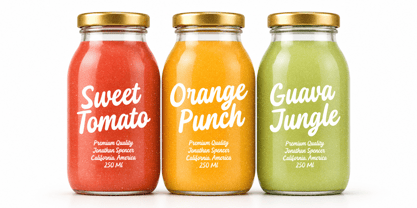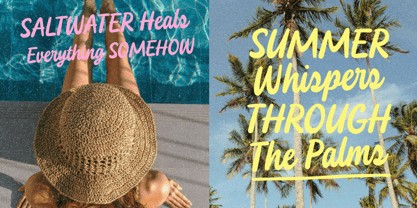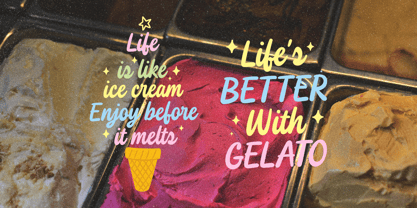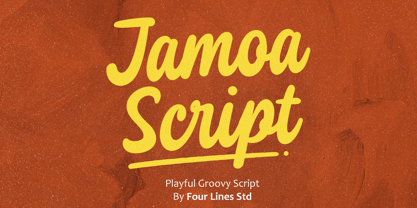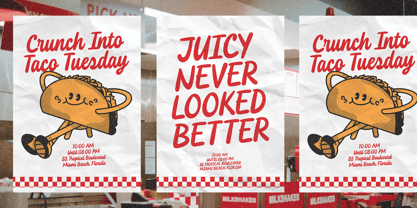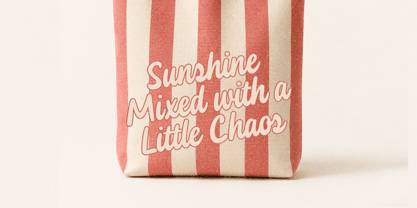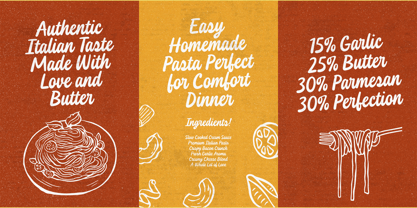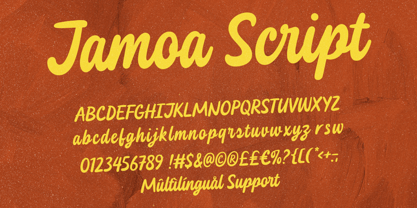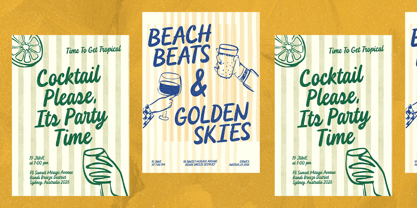
Jamoa Script
Die Schriftfamilie Jamoa Script wurde von Zain Fahroni entworfen und von Four Lines Std veröffentlicht. Jamoa Script enthält 1 Stile. Mehr über diese Familie
Jamoa Script is a playful groovy script font inspired by sunny summer vibes, retro cafés, beach parties, and warm handcrafted packaging. Featuring bold flowing letterforms with a natural and expressive rhythm, this font brings a lively, relaxed, and cheerful personality to every design.
Jamoa Script is perfect for food and beverage branding, posters, packaging, logos, tote bags, social media, and various lifestyle designs with a fun modern touch. It also comes with multilingual support, numbers, symbols, and smooth handwritten details that make every word feel more authentic and full of character.